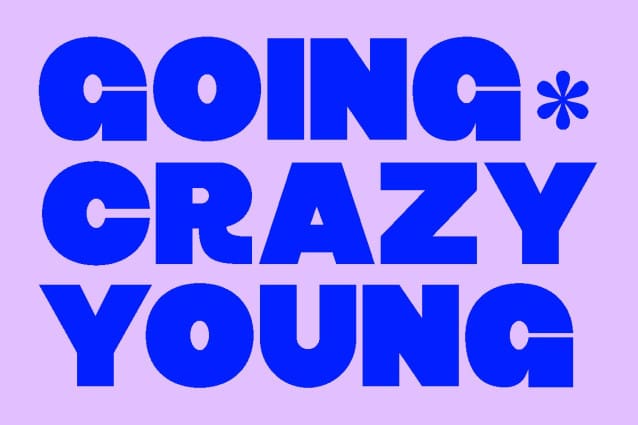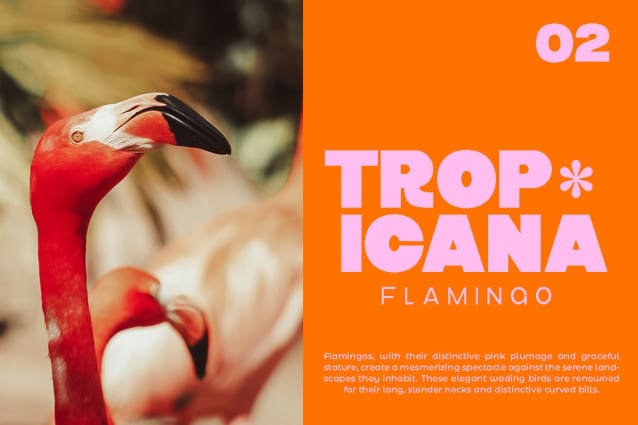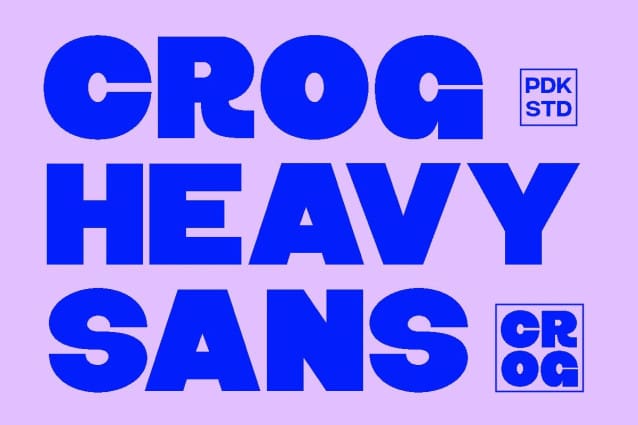
Crog Font
Crog Font by Pandeka Studio 19,487 downloads
Crog Font
Crog Font is a chunky, funky, loud, and cutely proud kinda font. Crog is playful, and bold while not being shouty with its soft corner. Its large real estate means it’s perfect for an image-fill effect while still being legible.